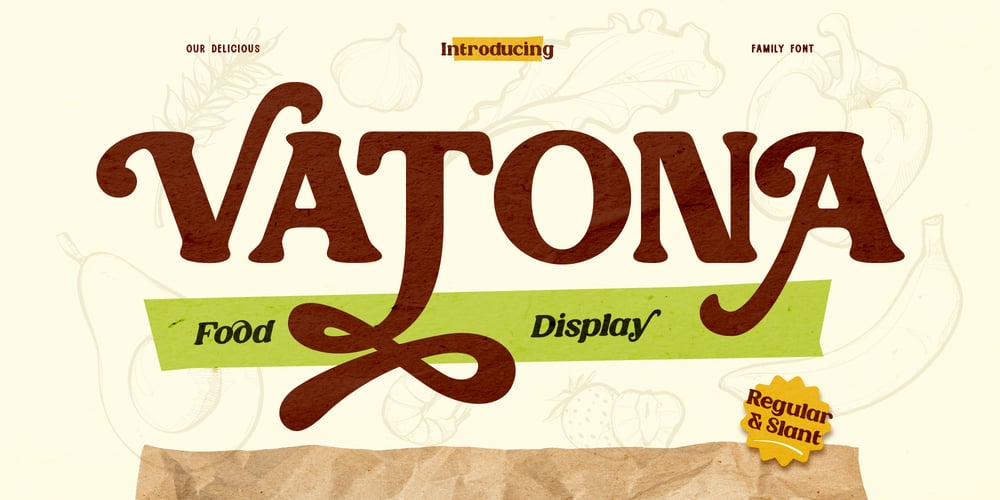
Vatona Font Family was designed by Eric Kurniawan and published by Burntilldead. Vatona contains 2 styles and family package options. Meet Vatona! A bold and stylish typeface with a unique mix of vintage charm and modern style. This font comes in two styles – Regular and Slant, so you can mix and match for the perfect look.Vatona also includes ligatures and alternate characters, giving you plenty of options to create eye-catching designs. Plus, with multilingual support, it’s ready to bring your work to a global audience.Perfect for modern or retro-themed designs, whether it’s a trendy menu, standout social media post, food branding, packaging, poster, and more!Features: A – Z set (Uppercase & Lowercase) Number Punctuation Alternate Ligature Multilingual